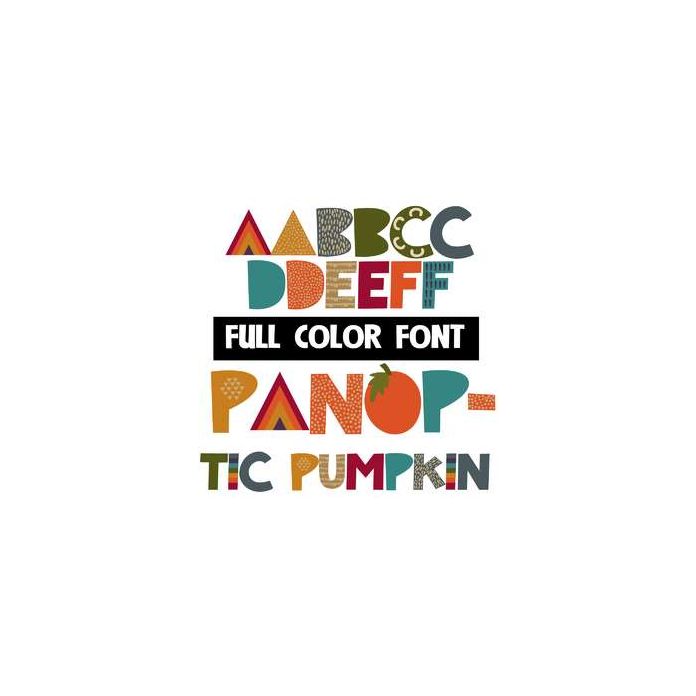
This full-color font is a whimsical, design-centric font with a pumpkin for the uppercase O. Mix up both cases as you type for best results. This font works best for titles, displays, posters and more. Please note color fonts will show as black in non compatible programs. This font type is compatible with Silhouette Studio.